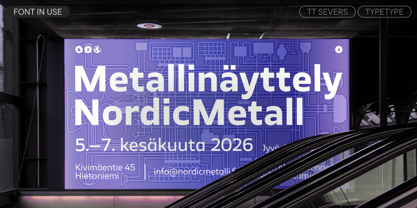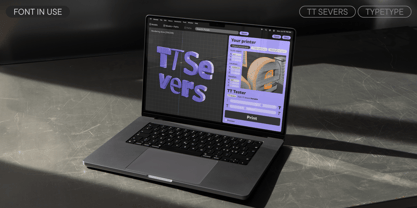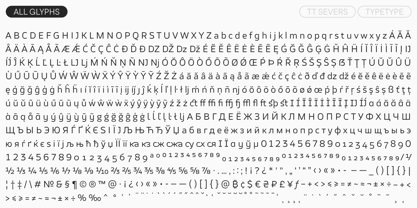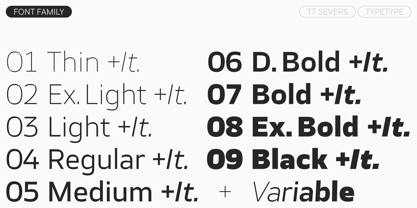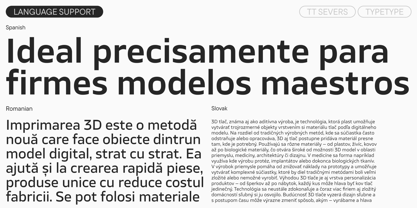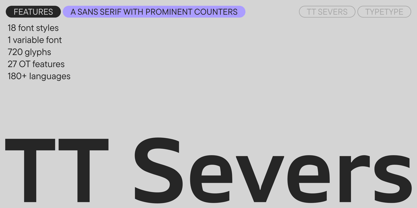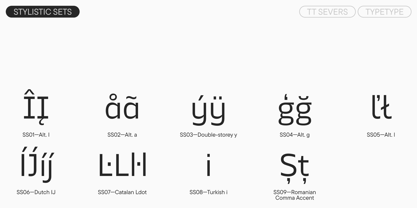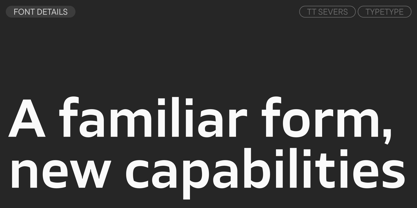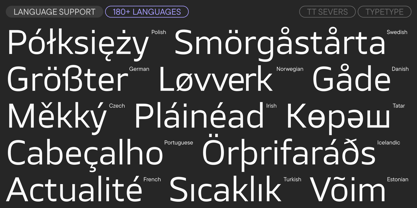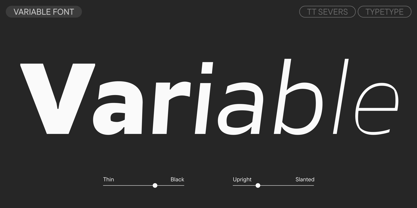
TT Severs
La familia tipográfica TT Severs fue diseñada por Ivan Gladkikh, Marina Khodak, TypeType Team y publicada por TypeType. TT Severs contiene 19 estilos y opciones de paquete familiar.
Introducing the updated TT Severs version 2.000! We've added new features, glyphs, and languages, as well as a variable style. TT Severs is a humanist sans serif with an open character and distinctive elements. A defining feature of this font is the unusual shape of the internal ovals, whose junctions allude to a calligraphic basis. TT Severs is a "two-in-one" typeface. At large point sizes, the font reveals its details and works beautifully as a display font, adding character to logos and headlines. At the same time, at small point sizes or in running text, the peculiarities of the rounded corners fade into the background, and the font is highly legible—thanks in part to the low contrast between vertical and horizontal strokes, as well as the meticulously thought-out logic of the black-and-white balance in the character design. The typeface features standard and discretionary ligatures, including experimental ligatures for Cyrillic. Additionally, TT Severs can be made softer using stylistic alternates. In the updated version, you will find even more OpenType features and stylistic sets, plus a variable font that changes along the weight and slant axes. We also added new languages and service glyphs. Specifically, we added minuscule mathematical symbols and expanded the Latin set. We also improved the technical components of the font—kerning and hinting have been completely updated. TT Severs is a versatile font that can be used in its various styles for a wide range of tasks. It will fit perfectly into designs related to technology, computer games, sports, and other sectors. TT Severs 2.000 includes: 19 styles: 9 uprights, 9 italics, and 1 variable font 720 glyphs per style 27 OpenType features Support for over 180 languages